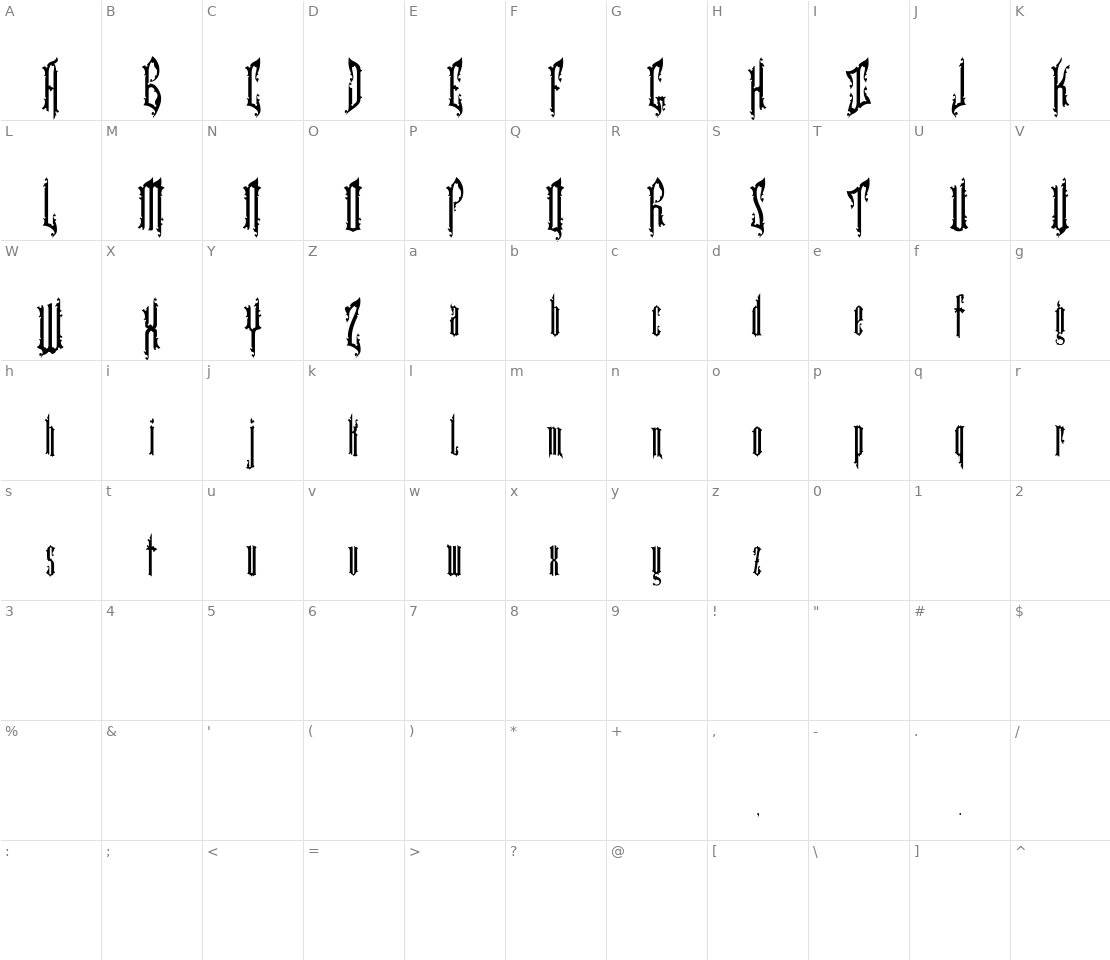
Cartographer
Cartographer is a condensed blackletter from Scott Aneloski with tightly packed, narrow letterforms that carry the dense vertical rhythm of medieval Textura scripts. The gothic strokes are sharp and dramatic but surprisingly readable for the style, keeping the ornamental complexity in check. Built for headlines, titles, and decorative use where you want that old-world manuscript energy without losing legibility at a glance.